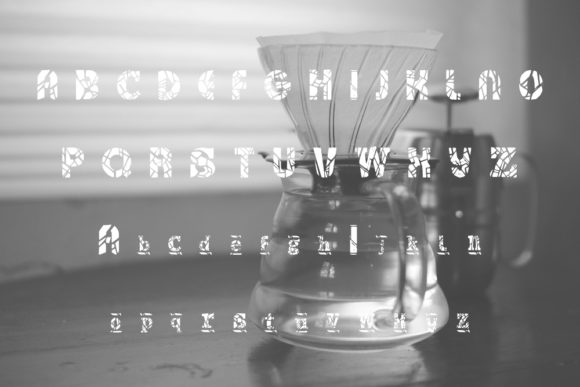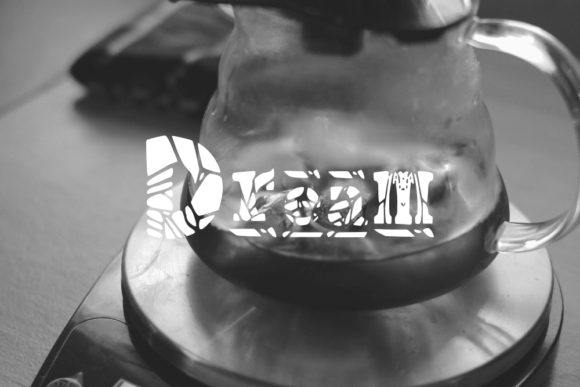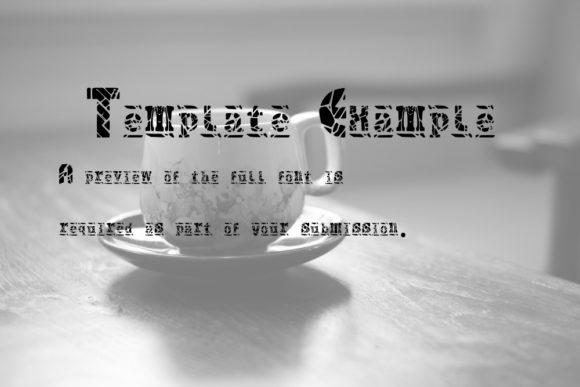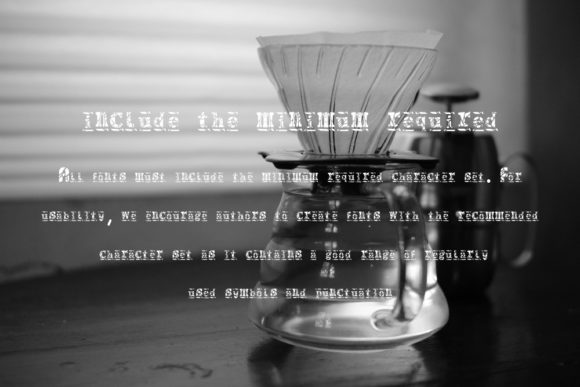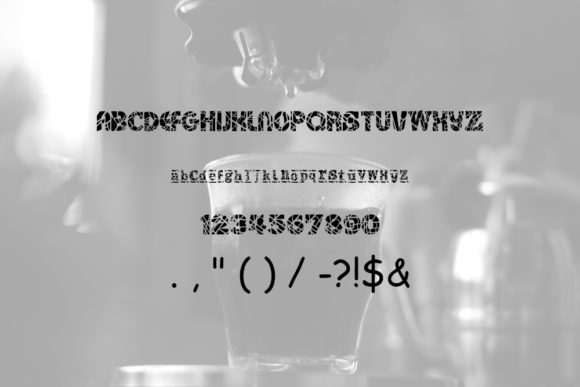
Cacings Font: Add a Playful Touch to Your Designs
Are you looking for a font that can add a dash of fun and playfulness to your designs? Look no further than Cacings Font! This delightful display font is perfect for designers and crafters who want to create eye-catching and engaging projects. In this article, we’ll dive into the features and benefits of Cacings Font, and explore how you can use it to take your designs to the next level.
What is Cacings Font?
Cacings Font is a fun display font that features an original and playful look. It’s designed to bring a smile to your face and add a special touch to your designs. With its unique and quirky style, Cacings Font is perfect for projects that require a bit of whimsy and personality. Whether you’re working on a graphic design project, crafting a handmade card, or creating digital art, Cacings Font is sure to impress.
Key Features of Cacings Font
So, what makes Cacings Font so special? Here are some of its key features:
- Playful and original design: Cacings Font has a one-of-a-kind design that’s sure to stand out from the crowd.
- Cute dingbats: The font comes with a range of adorable dingbats that can add an extra touch of fun to your designs.
- Display font: Cacings Font is designed specifically for display purposes, making it perfect for headlines, titles, and other attention-grabbing elements.
How to Use Cacings Font
Using Cacings Font is easy! Here are some ideas to get you started:
- Graphic design projects: Use Cacings Font to create eye-catching posters, flyers, and brochures.
- Handmade cards and invitations: Add a personal touch to your handmade cards and invitations with Cacings Font.
- Digital art: Use Cacings Font to create fun and playful digital art, such as illustrations and graphics.
- Crafting projects: Add a touch of whimsy to your crafting projects, such as scrapbooking and journaling.
Benefits of Using Cacings Font
So, why should you choose Cacings Font for your next project? Here are some benefits:
- Adds a touch of personality: Cacings Font can add a unique and playful touch to your designs.
- Easy to read: Despite its playful design, Cacings Font is easy to read and understand.
- Versatile: Cacings Font can be used for a range of projects, from graphic design to crafting.
- Fun to use: Let’s face it – Cacings Font is just plain fun to use! It’s a great way to add some personality to your designs and make them stand out.
Tips and Tricks for Using Cacings Font
Here are some tips and tricks for getting the most out of Cacings Font:
- Experiment with different colors: Cacings Font looks great in a range of colors, so don’t be afraid to experiment and find the perfect hue for your project.
- Mix and match with other fonts: Try pairing Cacings Font with other fonts to create a unique and eye-catching look.
- Use it sparingly: While Cacings Font is fun and playful, it can be overwhelming if used too much. Use it sparingly to add a touch of personality to your designs.
In conclusion, Cacings Font is a fun and playful display font that’s perfect for designers and crafters who want to add a touch of whimsy to their projects. With its original and quirky design, cute dingbats, and ease of use, Cacings Font is a great choice for anyone looking to create eye-catching and engaging designs. So why not give it a try and see how it can take your designs to the next level?